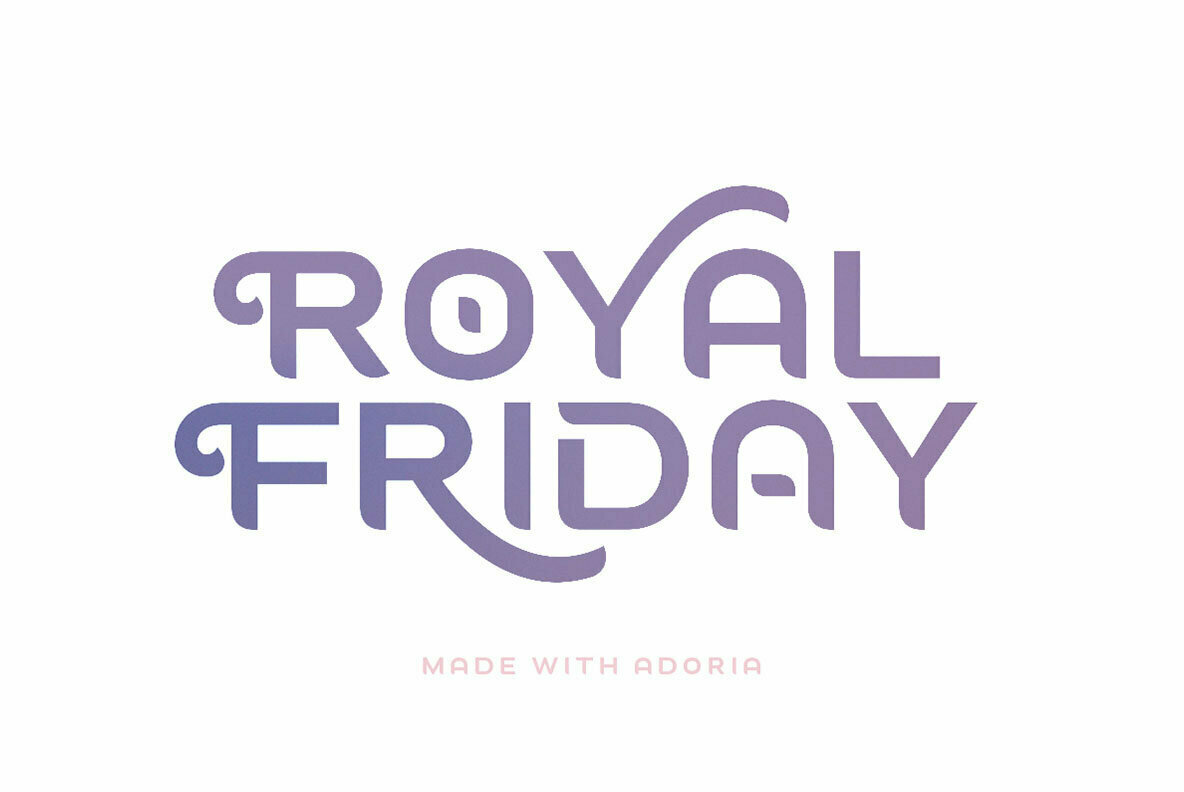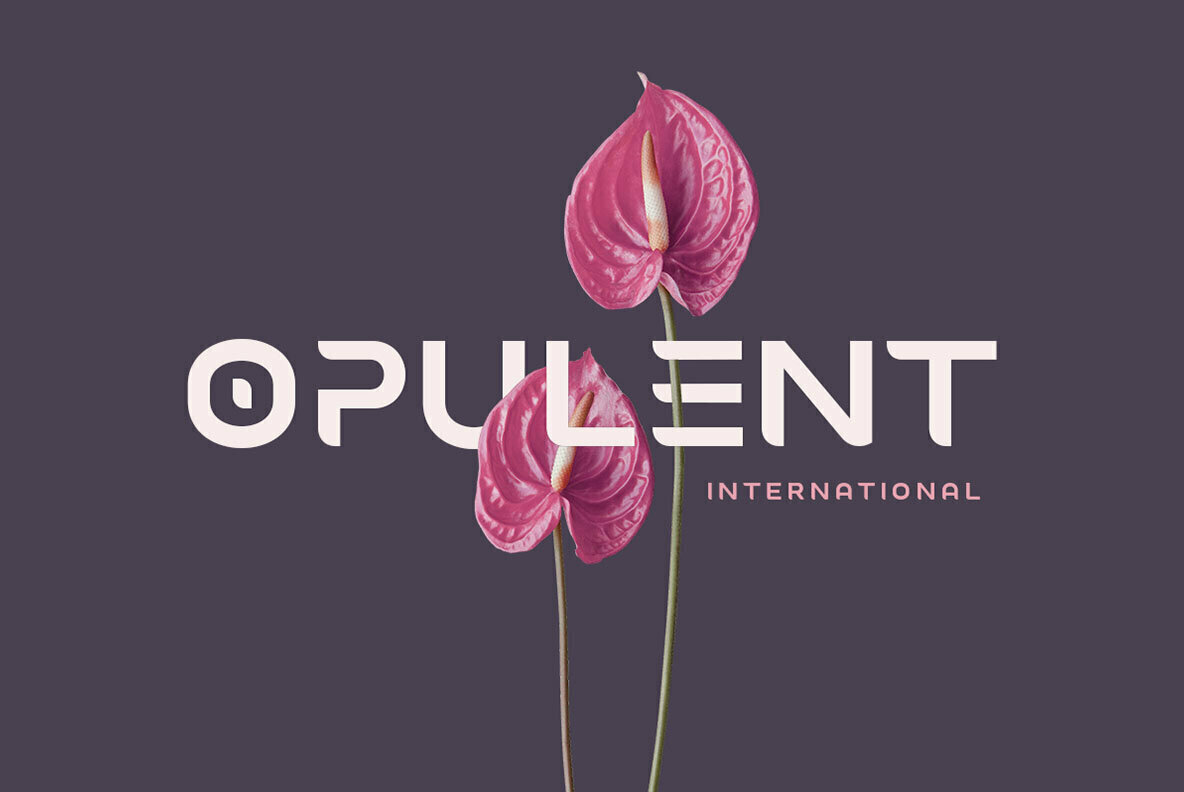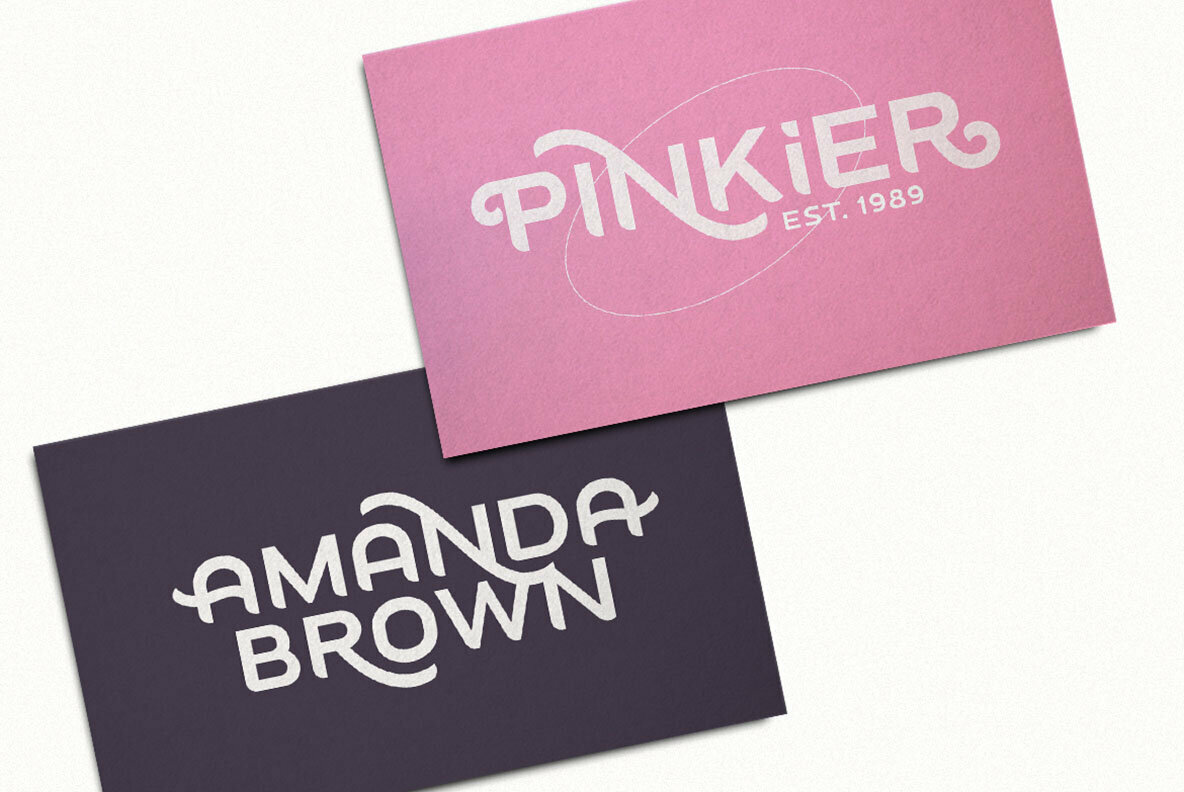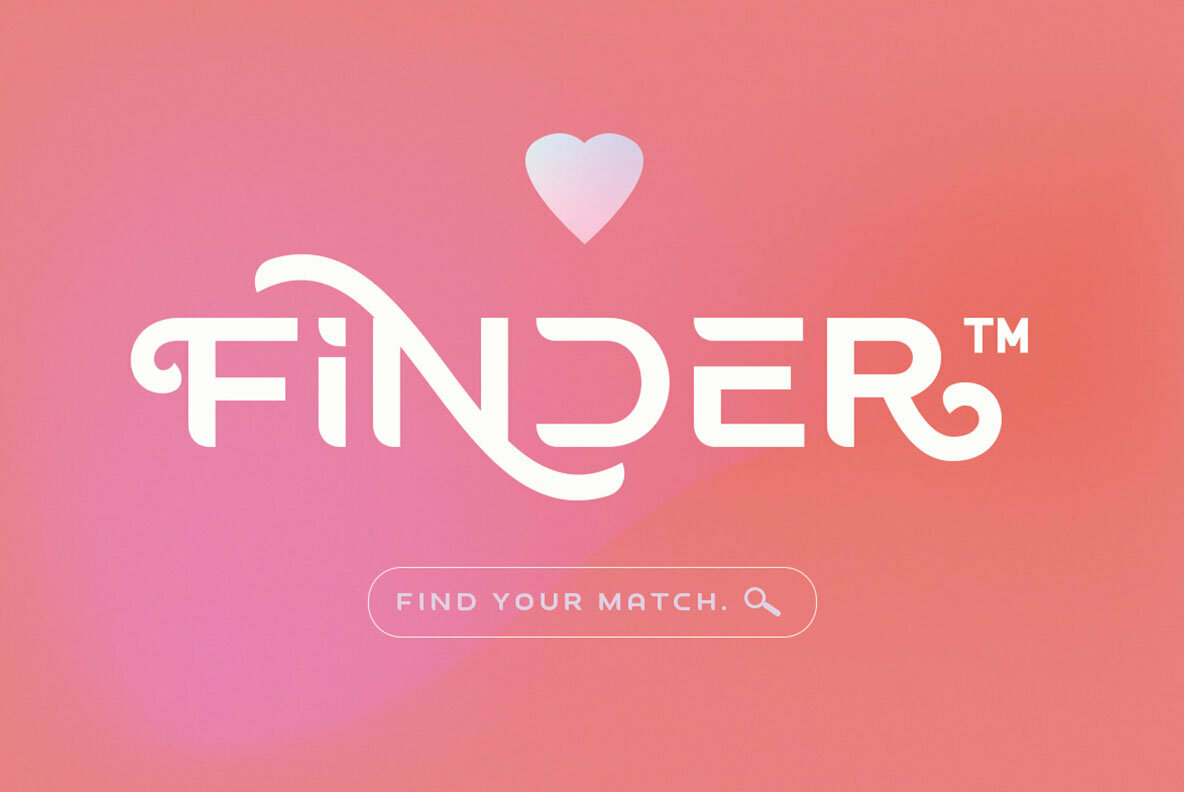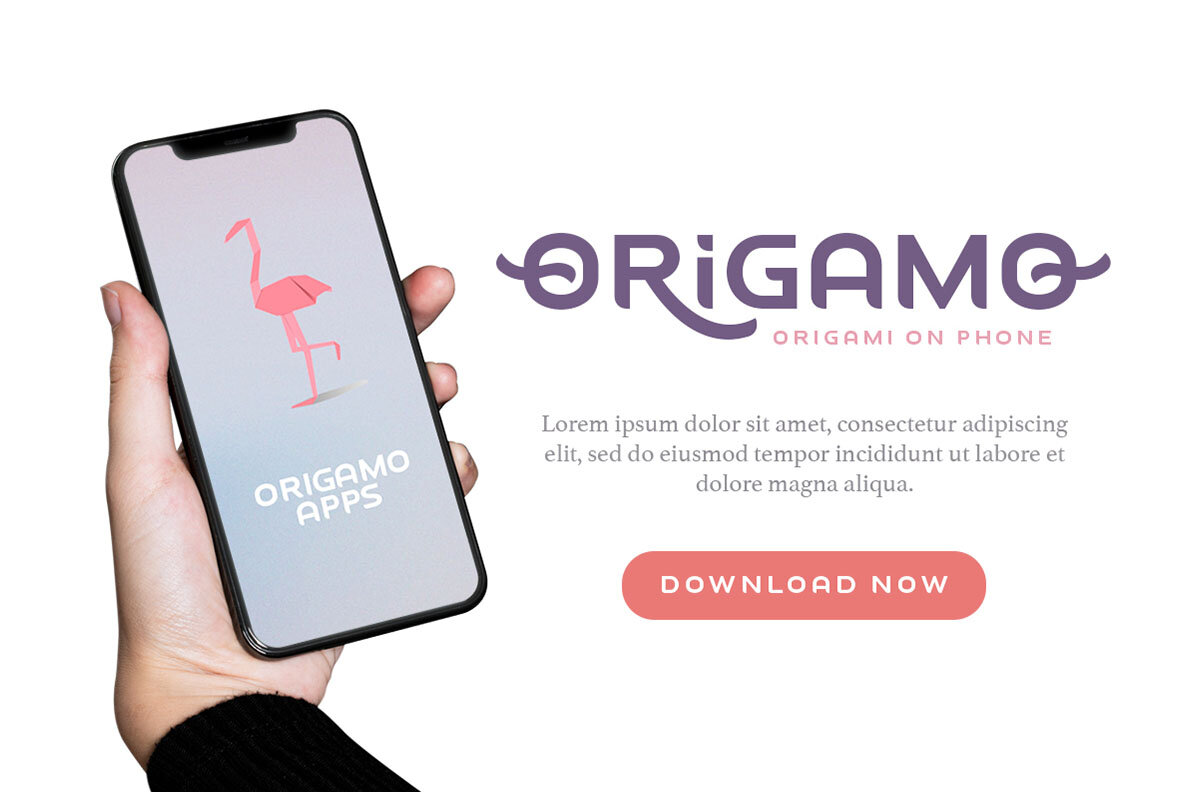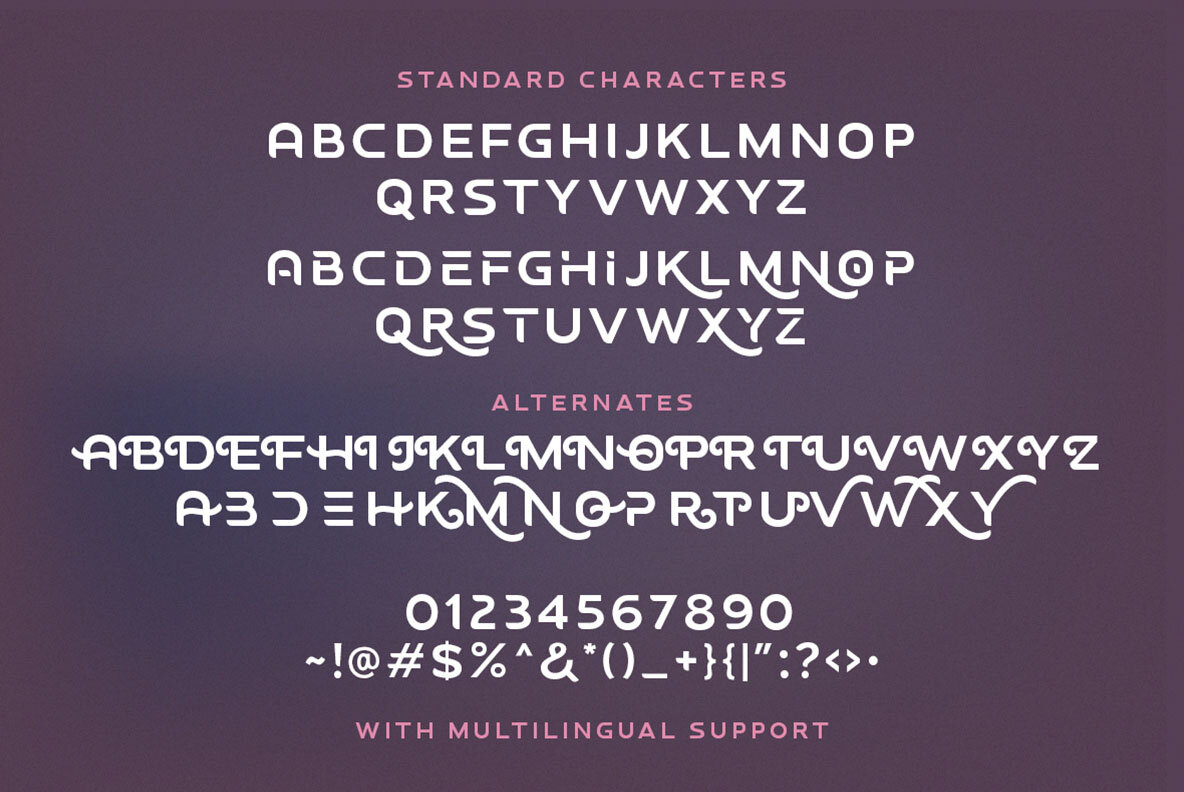
Adoria: Minimalist Font with Unique Edges
Adoria is designed with simplicity and modernity in mind, perfectly suited for creating standout logos. This minimalist typeface brings a distinct edge to your designs with its uniquely styled lowercase letters. It elevates the visual appeal, making your brand truly memorable.
• Unique Lowercase – Enhances design sophistication.
• Flexible Use – Ideal for logotypes, allowing creative combinations of uppercase and lowercase.
• Deluxe Alternates – Offers a range of stylish options to personalize your work.
• Comprehensive Character Set – Includes numbers, symbols, and supports multiple languages.